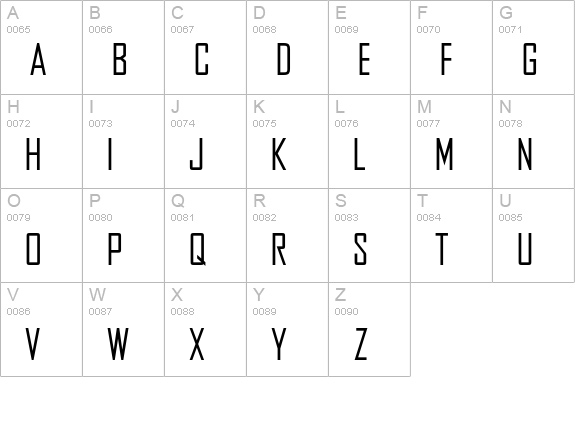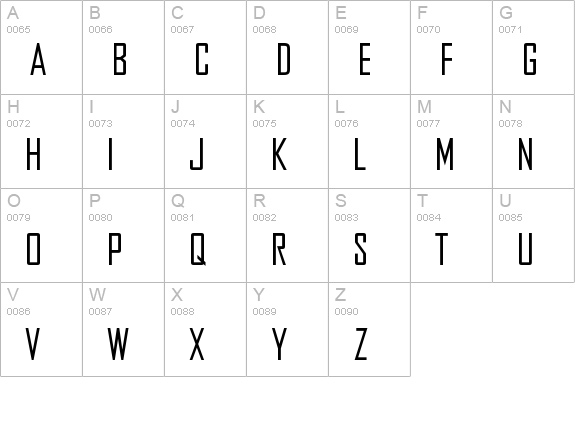
OPTIAgency-Gothic Font Details
Introducing OPTIAgency-Gothic font, a stunning display typeface that exudes elegance and sophistication. With its sharp angles and bold lines, this font is perfect for creating eye-catching headings and titles that demand attention. OPTIAgency-Gothic font is versatile and can be used in a variety of design projects, from branding to editorial layouts. The best part? OPTIAgency-Gothic font is available for free download at FontsMarket.com. Now you can elevate your designs with this premium font without breaking the bank. Don't miss out on the opportunity to add this unique and stylish typeface to your collection. Download OPTIAgency-Gothic font today and start creating standout designs that will leave a lasting impression.